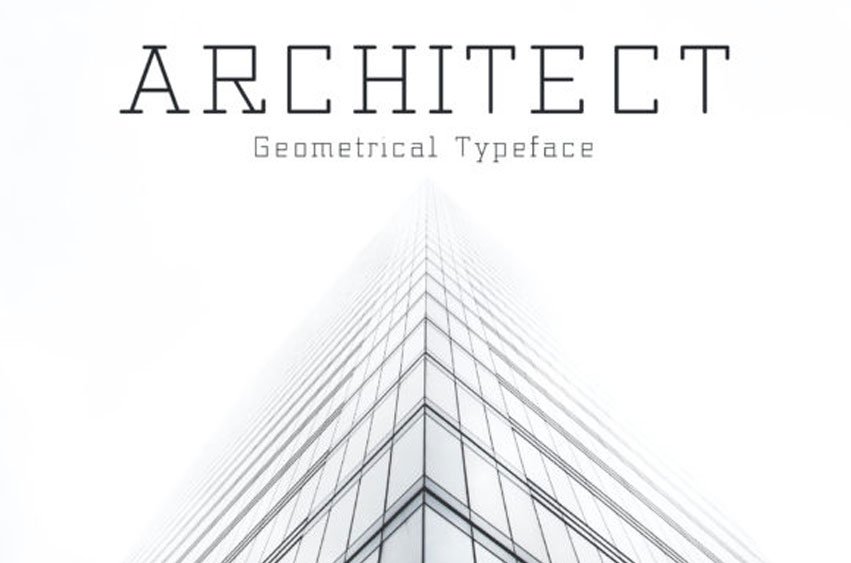
Architect Font is a fun serif font inspired by the early era of personal computers. This font is perfect for impactful headlines, logos, layouts and content.
Architect will pair beautifully with many fonts and may work well with whatever project you’re working on.